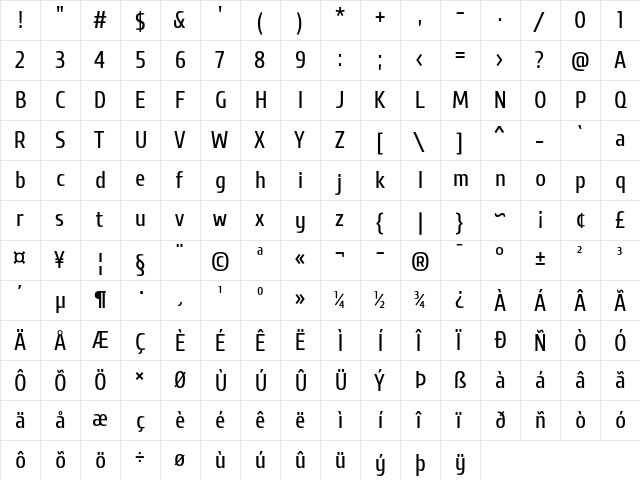
CuprumFFU Regular
| Foundry | Jovanny Lemonad |
| Designer | Jovanny Lemonad |
Design Context for CuprumFFU Typeface
CuprumFFU offers clean, dependable letterforms without strong stylistic allegiance, making it a practical choice for designers who need flexibility.